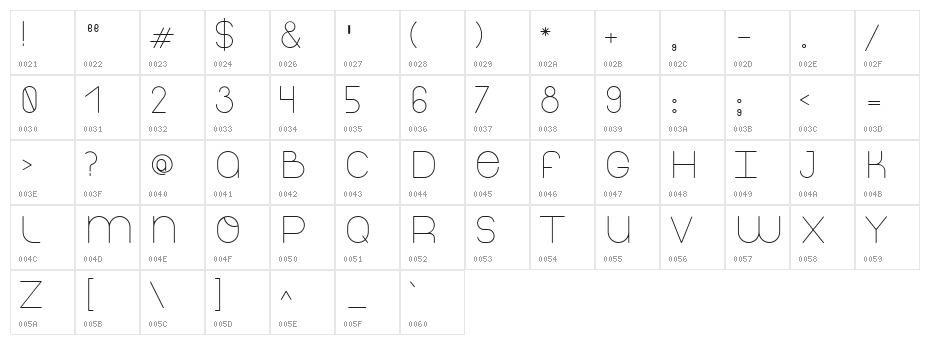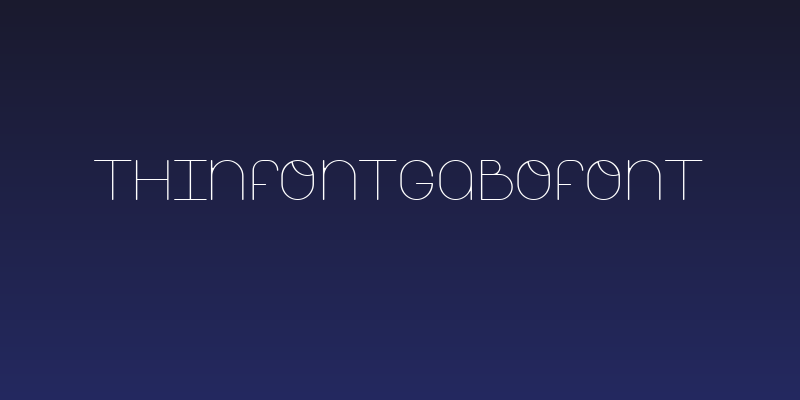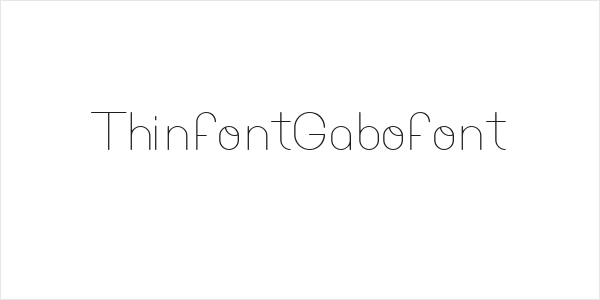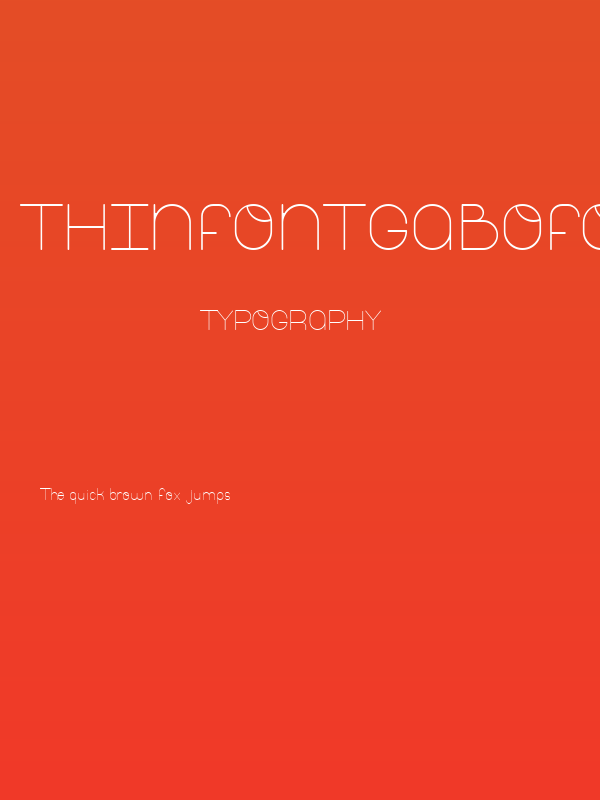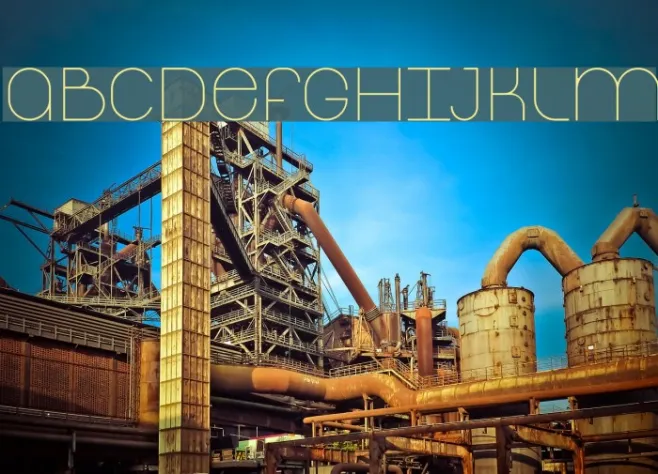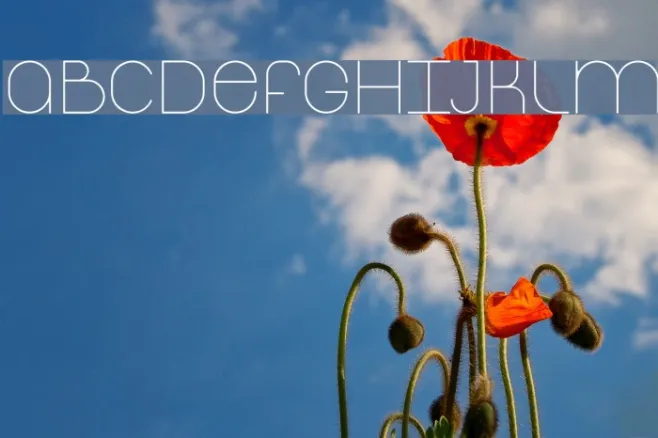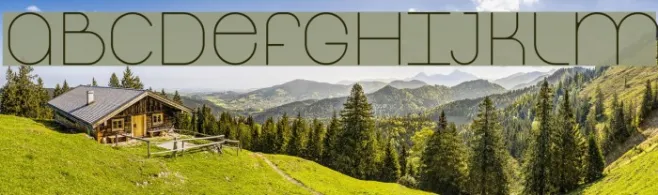
ThinfontGabofont Font
ThinfontGabofont Description
This font features a minimalist and geometric design with thin, uniform strokes that give it a clean and modern appearance. The characters are constructed with straight lines and subtle curves, creating a sense of simplicity and elegance. The uppercase and lowercase letters maintain a consistent style, with a focus on readability and balance. The numerals and special characters are designed to complement the overall aesthetic, making it suitable for a variety of design applications. Its thin weight and open character spacing contribute to a light and airy feel, ideal for projects that require a contemporary and uncluttered look.
| Proposed Projects | Ideal for modern branding, minimalist posters, sleek website headers, and contemporary product packaging. |